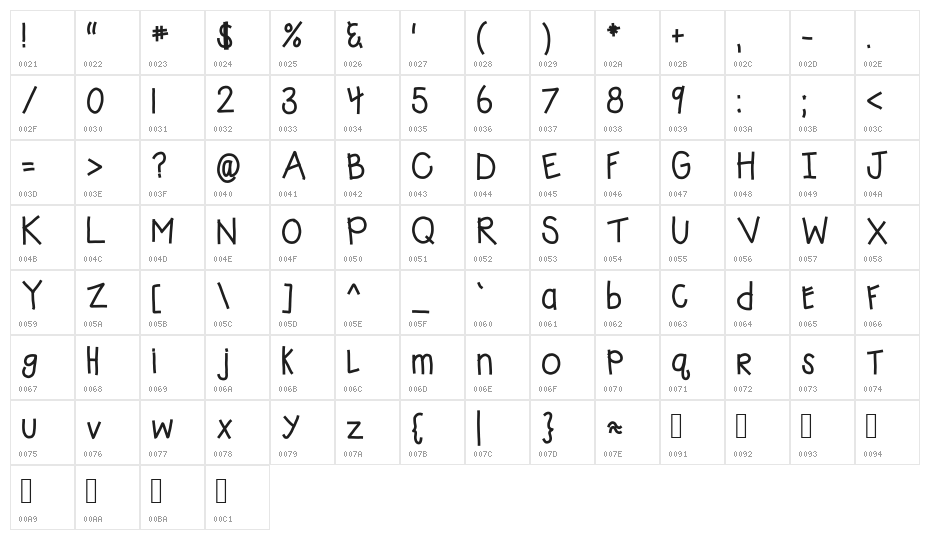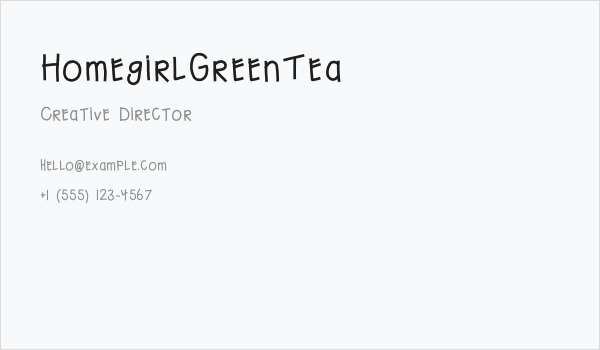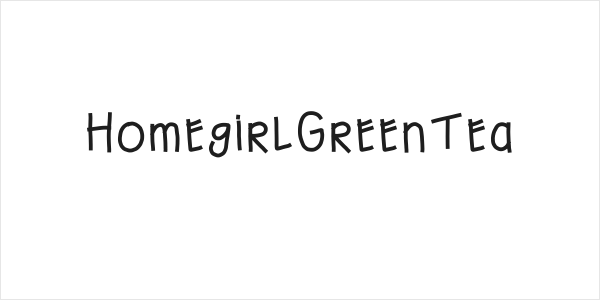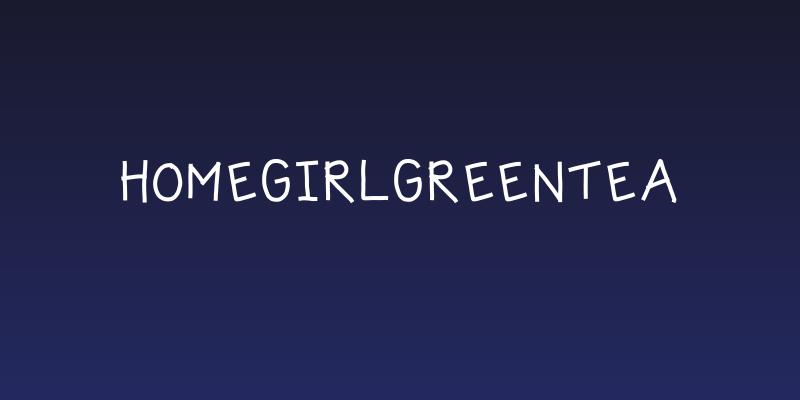
HomegirlGreenTea Font
HomegirlGreenTea Description
This playful and quirky font features a handwritten style that exudes a casual and friendly vibe. The letters are unevenly sized and slightly tilted, adding a sense of spontaneity and charm. The uppercase and lowercase characters maintain a consistent style, with rounded edges and a slightly irregular baseline, enhancing the handwritten feel. Numbers and special characters follow the same playful aesthetic, making the font versatile for various creative projects. The strokes are consistent in thickness, providing a balanced appearance without high contrast. This font is perfect for projects that require a personal touch or a fun, informal look.
Overall StyleCasual, Playful
Use CaseHeadlines, Informal text, Creative projects
Proposed ProjectsIdeal for greeting cards, children's books, casual branding, and social media graphics.